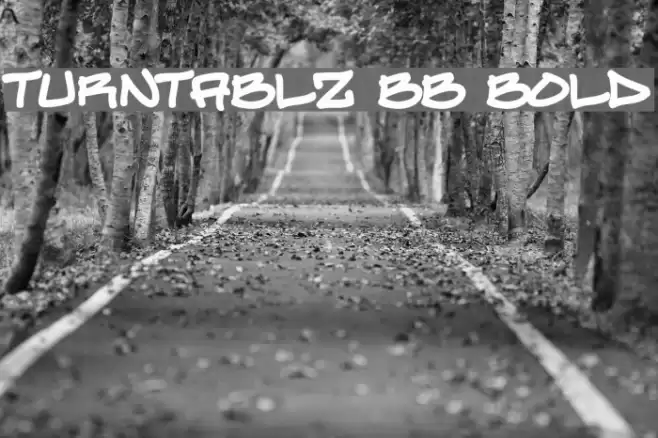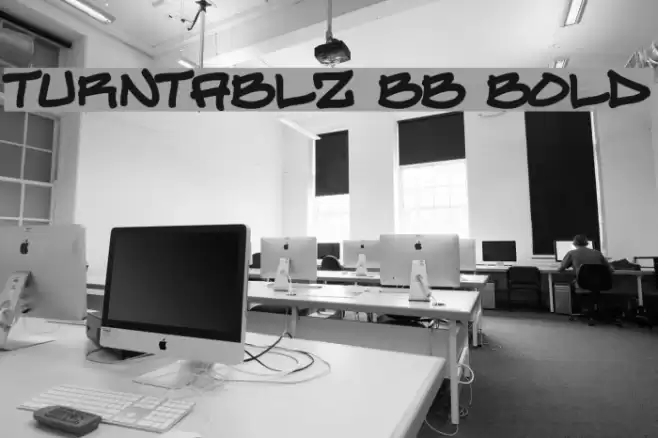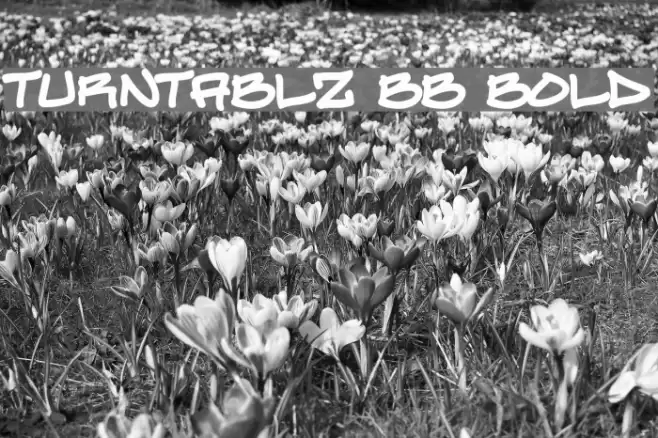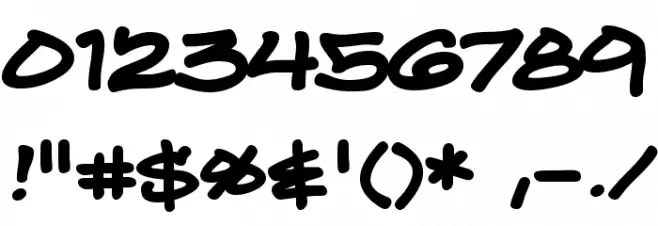
Turntablz BB Bold Font
Turntablz BB Bold Description
This font exudes a bold and energetic style, characterized by its thick, rounded strokes and playful, graffiti-like appearance. The letters are slightly slanted, adding a dynamic and informal feel. The uppercase and lowercase characters maintain a consistent style, with exaggerated curves and a hand-drawn aesthetic. The numbers and special characters follow the same bold and expressive design, making the font suitable for eye-catching displays. The overall look is modern and urban, perfect for projects that require a youthful and vibrant touch.
A bold, graffiti-inspired font with a playful and dynamic style from Uncategorized fonts.
- Proposed Projects: Ideal for street art designs, music album covers, urban-themed posters, and youth-oriented branding.